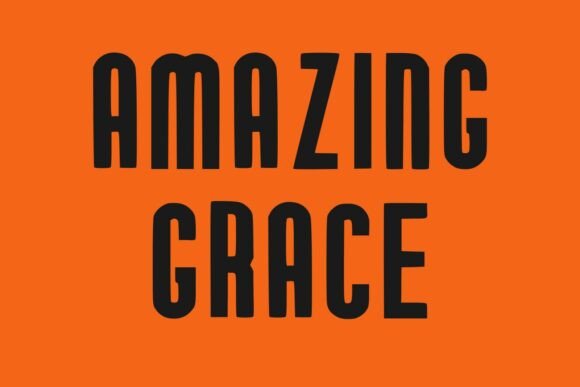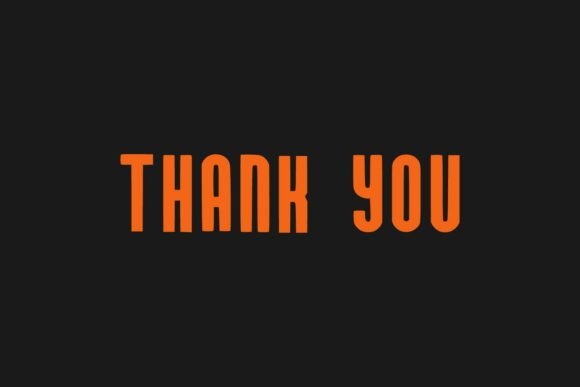
Introduction to Hindaka Font
As designers, we’ve all been there – staring at a blank canvas, struggling to find the perfect font to capture the essence of our creative project. It’s the moment when the entire design comes together, and the right typography can make all the difference. For those seeking a bold and eye-catching font, look no further than the Hindaka Font – a modern display font designed to make a statement.
With its clean geometric style and tall letterforms, the Hindaka Font is a valuable resource for designers seeking high-quality typography for their next project. Whether it’s a sports graphic, a poster, or a logo, this font delivers a powerful visual presence that’s sure to grab attention. And the best part? You can download the Hindaka Font for free, making it an accessible design resource for creatives of all levels.
- Designed with a unique aesthetic, the Hindaka Font is ideal for designers seeking a distinctive and eye-catching visual element.
Honest Review: Hindaka Font
I recently stumbled upon the Hindaka Font, a free download that caught my attention. As a designer, I appreciate high quality design resources that can elevate my creative project.
Here’s what works well for me:
- ✨ Unique design style: The Hindaka Font has a distinct and quirky look that sets it apart from other fonts.
- ✨ Transparent background: This makes it easy to layer and combine with other design elements.
- ✨ Versatility: The font is suitable for a wide range of creative projects, from branding to editorial design.
- ⚠️ Limited character set: The Hindaka Font has a limited character set, which may not be suitable for longer texts.
- ⚠️ Not ideal for small text: The font’s design may not be readable at smaller font sizes.
Overall, I’m impressed with the Hindaka Font’s unique design style and versatility. While it may have some limitations, it’s a great addition to any designer’s toolkit. If you’re looking for a free download to add some personality to your creative project, the Hindaka Font is definitely worth checking out.
The Hindaka Font is a high-quality, free download font perfect for any creative project. Its transparent background makes it an ideal choice for designers looking to add a touch of elegance to their designs.
Tips for Getting the Most Out of Hindaka Font
To get the most out of Hindaka Font, experiment with different font sizes and styles to find the perfect combination for your design. You can also use Hindaka Font in conjunction with other design elements to create a unique and eye-catching look.
Hindaka Font is commonly used in a wide range of creative projects, including social media graphics, presentations, and documents. Its high-quality design and transparent background make it an ideal choice for designers looking to add a touch of elegance to their designs.